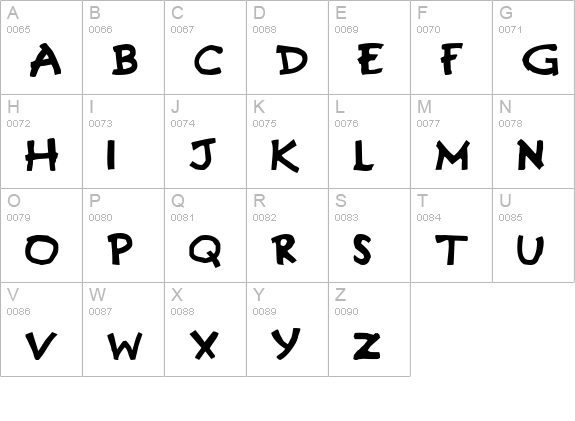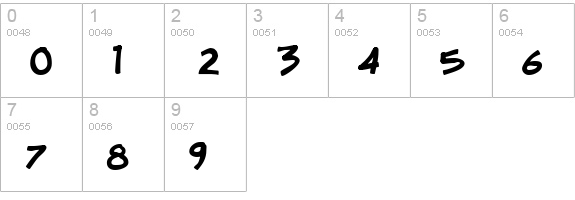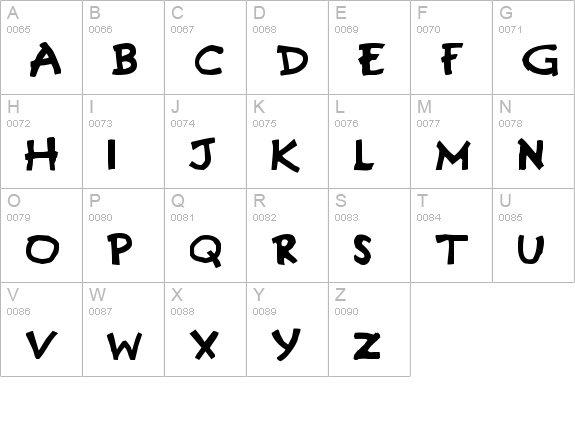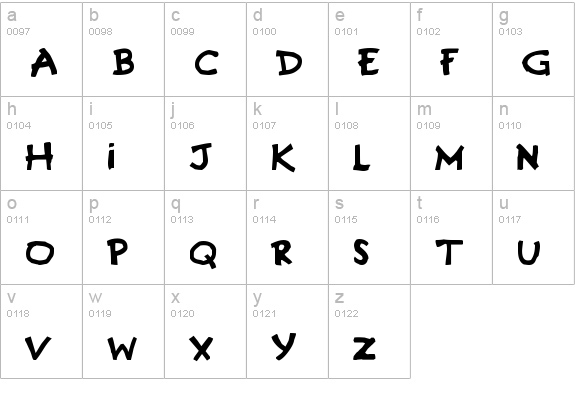
Gremlins Font Details
Gremlins font is a whimsical and playful typeface that is perfect for adding a touch of mischief to your designs. With its curly, mischievous letterforms, Gremlins font is sure to bring a sense of fun and excitement to any project. Whether you're creating a poster, logo, or greeting card, Gremlins font will add a unique and quirky touch. Best of all, Gremlins font is available for free download at FontsMarket.com. This means you can easily access this charming font and start using it in your designs right away. Don't miss out on the opportunity to add some playful flair to your projects with Gremlins font - download it for free today!